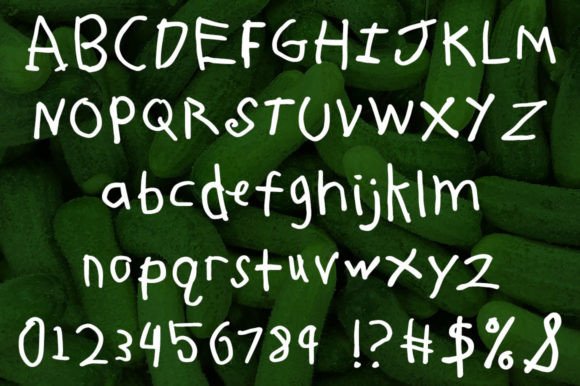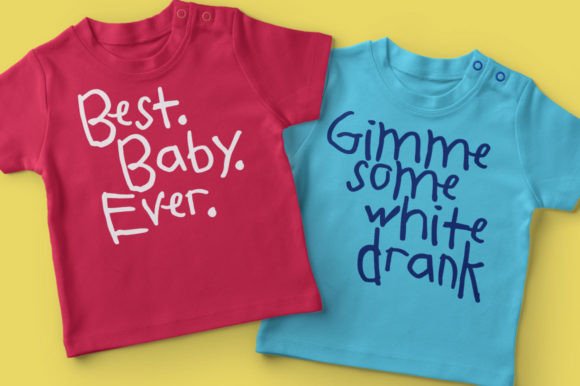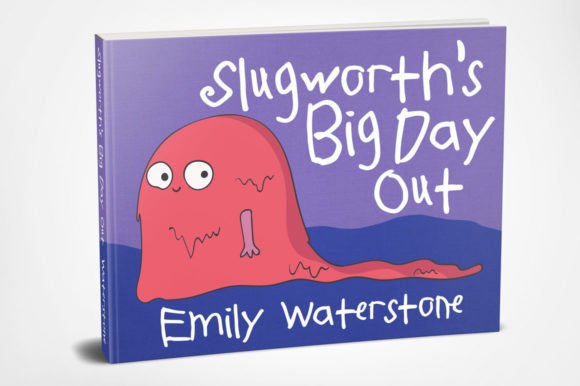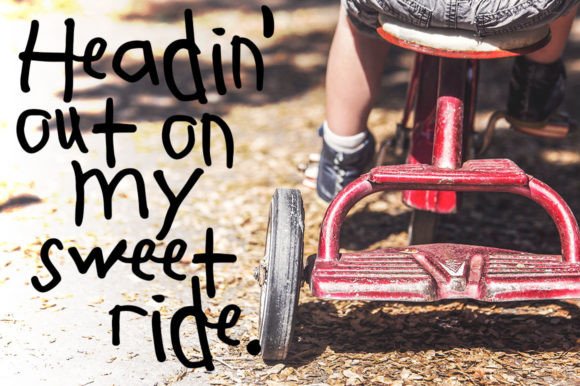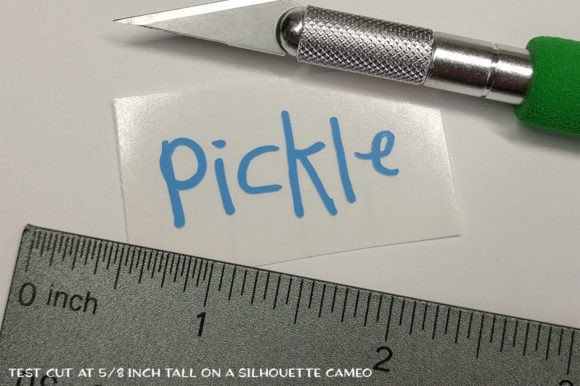
Pickle Biscuit Font
About Pickle Biscuit Font
“Pickle Biscuit” is not just a font; it’s a heartwarming typographic tale that emerges from the delightful chaos of a kindergarten class learning the alphabet. Inspired by the genuine and endearing letters penned by 5- and 6-year-olds, this font captures the innocence and creativity of early childhood writing.
Each letter in Pickle Biscuit is a miniature masterpiece, directly influenced by the authentic strokes of young learners. To ensure usability and cohesion, adjustments in size and weight were made, and the letters were smoothed for a more polished appearance. The result is a font that radiates the charm of childhood scribbles, inviting a sense of nostalgia and playfulness.
Practicality is key, and Pickle Biscuit has been test-cut on a Silhouette Cameo at a height of 5/8-inch, demonstrating its smooth performance in various applications. Whether you’re crafting for educational materials or simply seeking a font that exudes youthful energy, Pickle Biscuit is designed to cater to your creative needs.
In summary, Pickle Biscuit isn’t just a typeface; it’s a celebration of learning, creativity, and the joy of giving back. Through its charming letters and meaningful cause, Pickle Biscuit invites you to become part of a heartwarming journey that transcends the boundaries of typography.